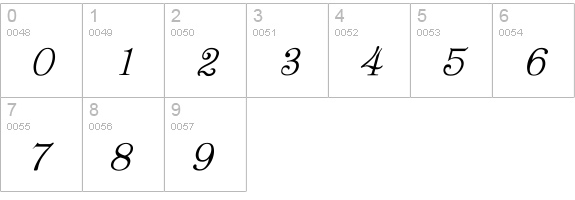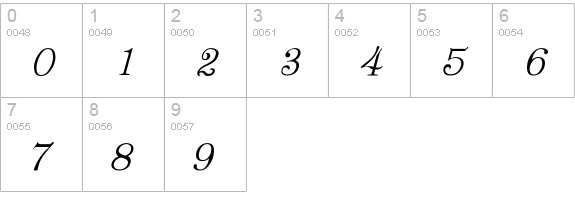
ProvLite Italic Font Details
ProvLite Italic is a distinctive, italic variant in the ProvLite typeface family \xE2\x80\x94 well suited to design and typography projects.
Discover the elegant and stylish ProvLite Italic font, perfect for adding a touch of sophistication to your designs. This sleek and modern typeface features a subtle italic slant that exudes professionalism and creativity. Its clean lines and graceful curves make it ideal for a wide range of projects, from branding to editorial design. Whether you're creating a sleek logo or designing a sophisticated wedding invitation, ProvLite Italic is sure to impress. The best part? ProvLite Italic is available for free! You can download this versatile font at FontsMarket.com and start using it in your projects right away. Don't miss out on the opportunity to elevate your designs with this beautiful typeface. Download ProvLite Italic today and let your creativity shine.